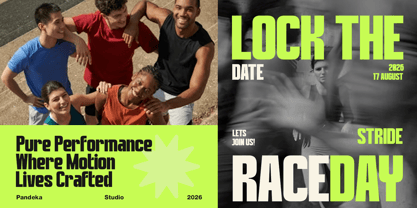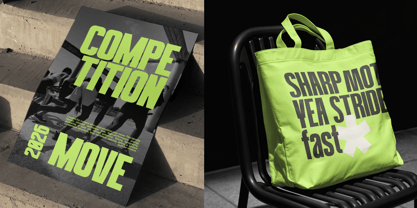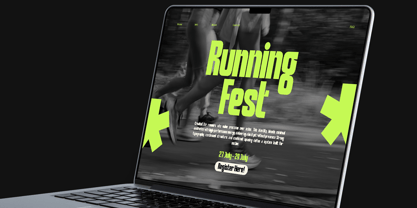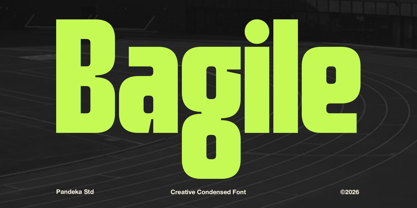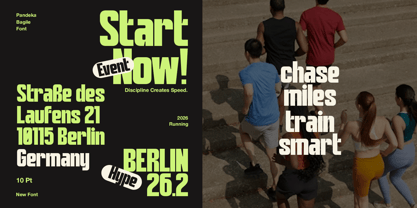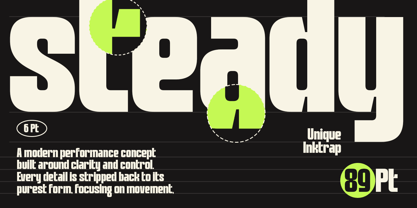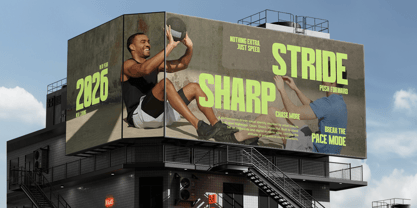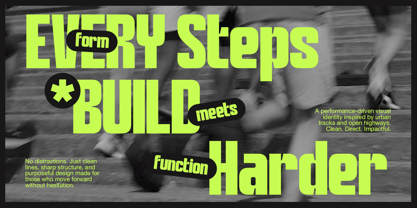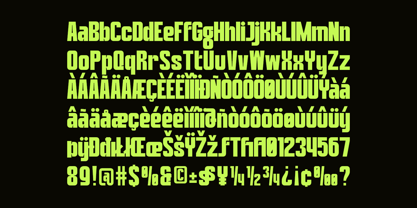
Bagile
by Pandeka Studio
The Bagile Font Family was designed by Sagara Nararya and published by Pandeka Studio. Bagile contains 1 styles. More about this family
Bagile is a bold and energetic sports condensed font designed to deliver strong athletic impact. With its tall proportions and compact letterforms, Bagile creates a dynamic, powerful, and highly legible look, perfect for high-performance and action-driven designs.
Available in 1 style: Regular, Bagile includes uppercase, lowercase, numbers, punctuation, and multilingual support. Ideal for sports branding, fitness campaigns, running events, gym promotions, esports graphics, posters, headlines, merchandise, and competitive visual identities.